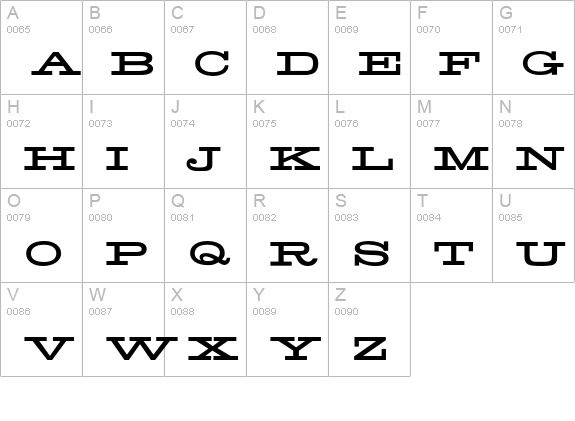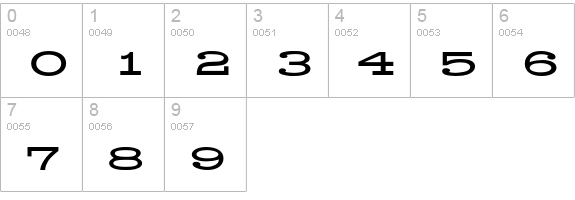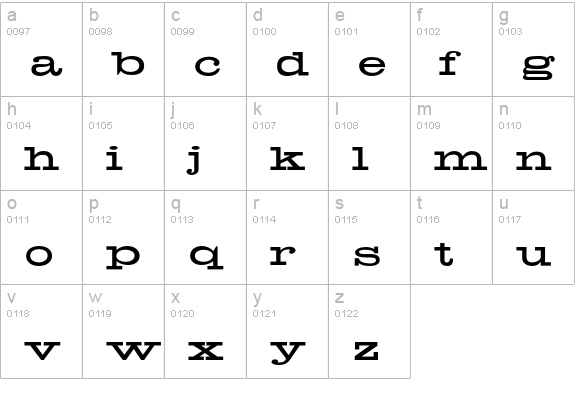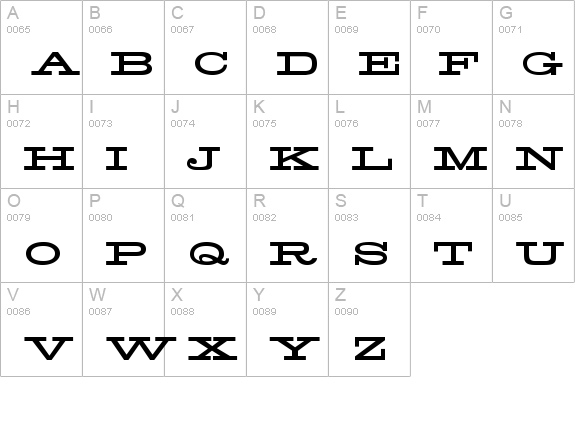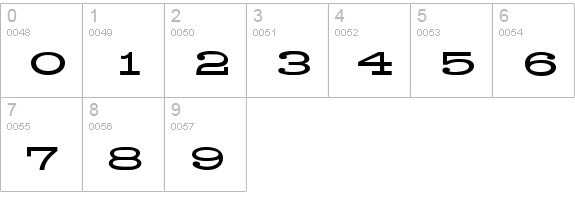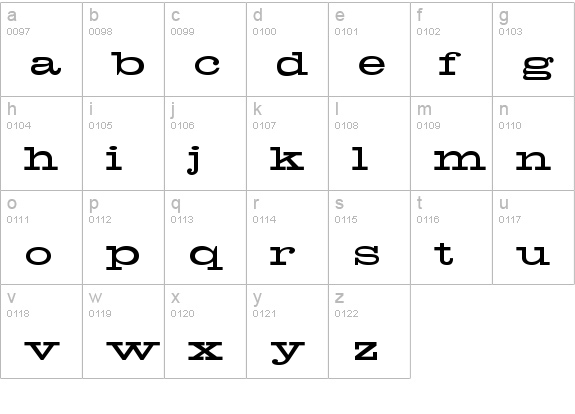
Midwest Font Details
The Midwest font is a versatile and modern typeface that embodies the spirit of the American Midwest. With its clean lines and balanced proportions, this font is perfect for a wide range of design projects, from branding to editorial design. The Midwest font features a timeless aesthetic that exudes professionalism and sophistication. What's even better is that the Midwest font is available for free download at FontsMarket.com. This means you can easily access this high-quality font without any cost, making it a valuable addition to your design toolkit. Don't miss out on the opportunity to elevate your projects with the Midwest font - download it today and start creating stunning designs with ease.